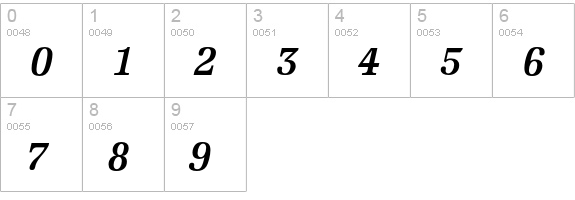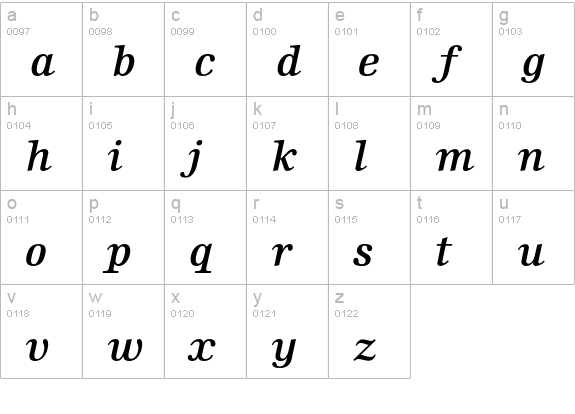
EdisonEF-SemiBoldItalic Font Details
EdisonEF-SemiBoldItalic font is a versatile and elegant typeface that adds a touch of sophistication to any design project. With its bold and slanted style, this font exudes confidence and modernity, making it perfect for headlines, logos, and branding materials. The EdisonEF-SemiBoldItalic font features sleek and elongated letterforms, creating a harmonious balance between strength and elegance. Each character is meticulously crafted, displaying a unique blend of curves and angles that give it a distinctive personality. One of the most appealing aspects of the EdisonEF-SemiBoldItalic font is that it is freely available to download at FontsMarket.com. This means that designers and creatives can easily access this stunning font without any financial barriers. Whether you are a professional designer or a hobbyist, you can now add the EdisonEF-SemiBoldItalic font to your collection without spending a dime. With its freely available status, the EdisonEF-SemiBoldItalic font opens up a world of creative possibilities. You can incorporate it into a wide range of projects, from websites and advertisements to invitations and packaging. Its versatility allows it to seamlessly adapt to various design styles and themes. The EdisonEF-SemiBoldItalic font's legibility is exceptional, ensuring that your message is clear and impactful. Its boldness catches the eye, while the slanted italic style adds a touch of dynamism and flair. This font effortlessly commands attention and creates a lasting impression. In conclusion, the EdisonEF-SemiBoldItalic font is a remarkable typeface that combines strength, elegance, and modernity. Its freely available status on FontsMarket.com allows designers to effortlessly elevate their designs without any cost. Download the EdisonEF-SemiBoldItalic font today and explore the endless creative possibilities it has to offer.